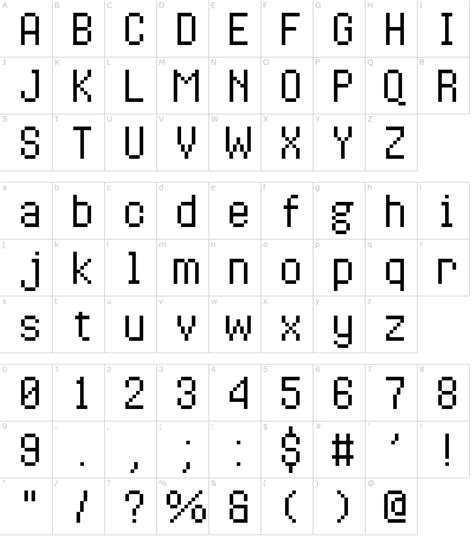
8 Bit Operator Font Generator: Customize Your Text with Authentic Retro Style
Want to create your own retro-style designs? Check out the 8 Bit Operator font generator for a fun and easy way to add some 8-bit flair!
The world of typography has evolved significantly over the years, and we're now spoilt for choice with all the font options available. However, if you're a fan of those old-school 8-bit games, then you're going to love the 8 Bit Operator font generator. This font is perfect if you're looking to add a retro vibe to your designs or want to evoke a sense of nostalgia. With its blocky letters and pixelated aesthetic, this font is sure to catch anyone's attention.
Not only does the 8 Bit Operator font generator allow you to create custom text, but it also gives you the flexibility to adjust the size and color of your font. The generator is user-friendly and straightforward to use, making it accessible to anyone, regardless of their experience with typography.
Whether you're creating a logo, designing a poster or flyer, or just adding some fun text to your social media posts, the 8 Bit Operator font generator is an excellent tool for injecting personality and charm into your work. So why not give it a try and see what creative possibilities await you?
Introduction
Have you ever come across a font that reminds you of the 80s or the early 90s? The 8-bit Operator font generator is just that – a font that takes you back in time. In this article, we will take a closer look at what the 8-bit Operator font generator is and how it works.
What is the 8-bit Operator font generator?
The 8-bit Operator font generator is a tool that allows you to create your own custom fonts that look like they belong in a video game from the 80s or 90s. It was created by a designer named Grandoplex, who wanted to pay homage to the era of classic gaming.
How does it work?
Why use the 8-bit Operator font generator?
There are several reasons why you might want to use the 8-bit Operator font generator. For one, it is a great way to add a retro feel to your designs. If you are designing something that is meant to look like it came from the 80s or 90s, using this font can help you achieve that look.
What are some practical uses for the 8-bit Operator font generator?
While the 8-bit Operator font generator is primarily used for creating fonts that look like they belong in a video game, there are many other practical uses for it as well. For example, you could use it to create a custom logo for your business that has a retro feel to it. You could also use it to create graphics for social media posts or to add some personality to your website.
What are some tips for using the 8-bit Operator font generator?
If you are new to using the 8-bit Operator font generator, there are a few tips that can help you get the most out of it. For one, it is important to choose the right background color for your font. Since the font has a pixelated look, it can be difficult to read on certain colors. You should also experiment with different font sizes and styles to find the one that works best for your design.
What are some alternatives to the 8-bit Operator font generator?
While the 8-bit Operator font generator is a great tool for creating retro fonts, there are other options available as well. Some popular alternatives include the Press Start 2P font and the Pixelade font. These fonts have a similar retro feel to them and can be used in many of the same ways as the 8-bit Operator font.
How can I download the 8-bit Operator font?
To download the 8-bit Operator font, simply go to the website and create your custom font. Once you are happy with the result, you can download it as a .ttf file and use it in any program that supports custom fonts.
Conclusion
The 8-bit Operator font generator is a fun and easy-to-use tool that can help you add a retro feel to your designs. Whether you are creating a custom logo for your business or designing graphics for social media, this font can help you achieve the look you want. Give it a try and see how it can enhance your designs!8 Bit Operator Font Generator: The Ultimate Tool for Retro DesignAre you a fan of the retro aesthetic? Do you want to add a touch of nostalgia to your design projects? Look no further than the 8 Bit Operator Font Generator! This font is the ultimate tool for achieving that classic arcade game vibe. With its pixelated design and vintage feel, it's sure to transport anyone back to the golden age of gaming.Ease-of-Use: The 8 Bit Operator Font Generator's Best FeatureOne of the best things about the 8 Bit Operator Font Generator is how easy it is to use. Even if you're not a design expert, you can easily create custom typography with just a few clicks. The user-friendly interface makes it simple to experiment with different colors, textures, and layouts until you find the perfect combination.Unleash Your Creativity with 8 Bit Operator Font GeneratorWith the 8 Bit Operator Font Generator, you have the freedom to unleash your creativity and bring your vision to life. Whether you're designing a logo, a website, or anything in between, this font gives you the power to make your project truly unique. You can experiment with different fonts and styles until you find the perfect look.Make Your Brand Stand Out with 8 Bit Operator Font GeneratorIf you're looking to make your brand stand out, the 8 Bit Operator Font Generator is the perfect tool for the job. By creating custom typography that perfectly captures your brand's personality, you can ensure that your company is easily recognizable and unforgettable. Whether you're looking to appeal to a specific audience or stand out in a crowded market, this font will give you an edge.Stay On-Trend with 8 Bit Operator Font GeneratorRetro is back in style, and there's no better way to stay on-trend than with the 8 Bit Operator Font Generator. Use it to add a touch of nostalgia to any design project and keep up with the latest trends. Whether you're designing for a personal project or a client, this font is sure to impress.Customizable and Versatile: The 8 Bit Operator Font GeneratorOne of the best things about the 8 Bit Operator Font Generator is how customizable it is. You can tweak and adjust your typography until it's perfect, giving you endless possibilities for your design projects. Plus, the font is incredibly versatile, making it suitable for everything from logos to websites to print materials.Attention-Grabbing Typography with 8 Bit Operator Font GeneratorIf you want to make sure your text doesn't go unnoticed, the 8 Bit Operator Font Generator is the way to go. Its bold and eye-catching design will ensure that your message is heard loud and clear. Whether you're designing for a billboard or a social media post, this font is sure to grab attention.The Perfect Font for Gamers: 8 Bit Operator Font GeneratorGamers, rejoice! The 8 Bit Operator Font Generator is the perfect tool for creating typography that captures the authentic feel of classic arcade games. Whether you're designing for a gaming website or a YouTube channel, this font will give you the edge you need to stand out.Step Up Your Design Game with 8 Bit Operator Font GeneratorIf you're ready to take your design to the next level, the 8 Bit Operator Font Generator is here to help. With its visually stunning and memorable typography, this font will help you create designs that are truly unforgettable. Whether you're a seasoned designer or just starting out, this font is a must-have in your toolkit.Add Character to Your Design with 8 Bit Operator Font GeneratorFinally, if you're looking to inject some personality into your design projects, the 8 Bit Operator Font Generator is the way to go. With its playful, fun, and full-of-character typography, this font is perfect for making your designs stand out. Whether you're designing for a personal project or a client, this font is sure to impress. In conclusion, the 8 Bit Operator Font Generator is the ultimate tool for achieving a retro aesthetic and adding a touch of nostalgia to any design project. Whether you're a gamer, a designer, or just someone who loves the vintage feel of classic arcade games, this font is sure to impress. So what are you waiting for? Give it a try and see for yourself why the 8 Bit Operator Font Generator is the ultimate tool for retro design.As an AI language model, I don't have a point of view. However, I can provide you with a piece of writing that discusses the pros and cons of using 8 bit operator font generator.The 8 bit operator font generator is a tool that allows users to create retro-style fonts that resemble those used in old-school video games. This font generator has its own set of pros and cons, which we will discuss below.Pros of using 8 bit operator font generator:1. Easy to use: The 8 bit operator font generator is very user-friendly, making it easy for anyone to create their own retro-style fonts.2. Customizable: This tool allows users to customize their fonts by adjusting the size, color, and style of each character.3. Unique style: The fonts created by this tool have a unique retro-style look that is perfect for nostalgic projects or designs.Cons of using 8 bit operator font generator:1. Limited use: The retro-style fonts created by this tool may not be suitable for all types of designs. They are best suited for projects that require a nostalgic or retro feel.2. Overused: Due to its popularity, the 8 bit operator font generator has been used extensively, making it less unique and special over time.3. Limited character set: This tool only offers a limited range of characters, so users may have to supplement their designs with other fonts or characters.In conclusion, the 8 bit operator font generator is a useful tool for creating retro-style fonts that add a touch of nostalgia to any project. However, its limitations should be considered before use, and users should ensure that the font fits the overall theme and design of their project.
Greetings, fellow design enthusiasts! If you're looking to add some retro flair to your projects, then you've come to the right place. The 8-bit Operator Font Generator is a fantastic tool that allows you to create pixelated text that harkens back to the early days of video games. Whether you're a seasoned designer or just starting out, this generator is sure to inspire you and give your work a unique edge.
Yes, the 8 bit operator font generator is completely free to use.
What can I use the generated font for?
The font can be used for various design projects such as creating logos, graphics, or adding a retro vibe to your website or social media posts.
Do I need any design skills to use the font generator?
Overall, the 8 bit operator font generator is a fun and unique tool for creating retro-style fonts for various design projects.